Best Script Fonts on Canva: A Simple Guide to Better Looking Designs
From Etsy sellers and freelancers to teachers and small business owners, Canva has become the best go to option for everyone.But when a design does not look good, we usually blame the tools. The truth is, fonts change everything. The right font can make your work look professional in less than a minute, but a bad font can completely ruin your whole design.
New to design? Don’t use too many fonts. Just pick two good ones that look nice together and stick with them.
In this guide, we’ll explore the top script fonts on Canva and look at exactly how to use them so your designs can look way more beautiful and engaging.
Quick Picks: Best Script Fonts in Canva
If you want a fast shortlist, start here:
- Great Vibes
- Brittany
- Amsterdam Four
- Sacramento
- Bellaboo
- Parisienne
- Lobster
- Pacifico
- Courgette
- Moontime
These fonts cover elegant, bold, modern, playful, and signature styles.
What Are Script Fonts?
Script fonts are fonts that look like handwriting, brush strokes, or flowing calligraphy. They add personality and movement to a design. They often feel warmer and more personal than standard fonts.
They work well for:
- Logos
- Invitations
- Quotes
- Social media graphics
- Beauty brands
- Etsy shops
- Blog covers
- Promotional banners
Use them when you want style, emotion, or a premium feel.
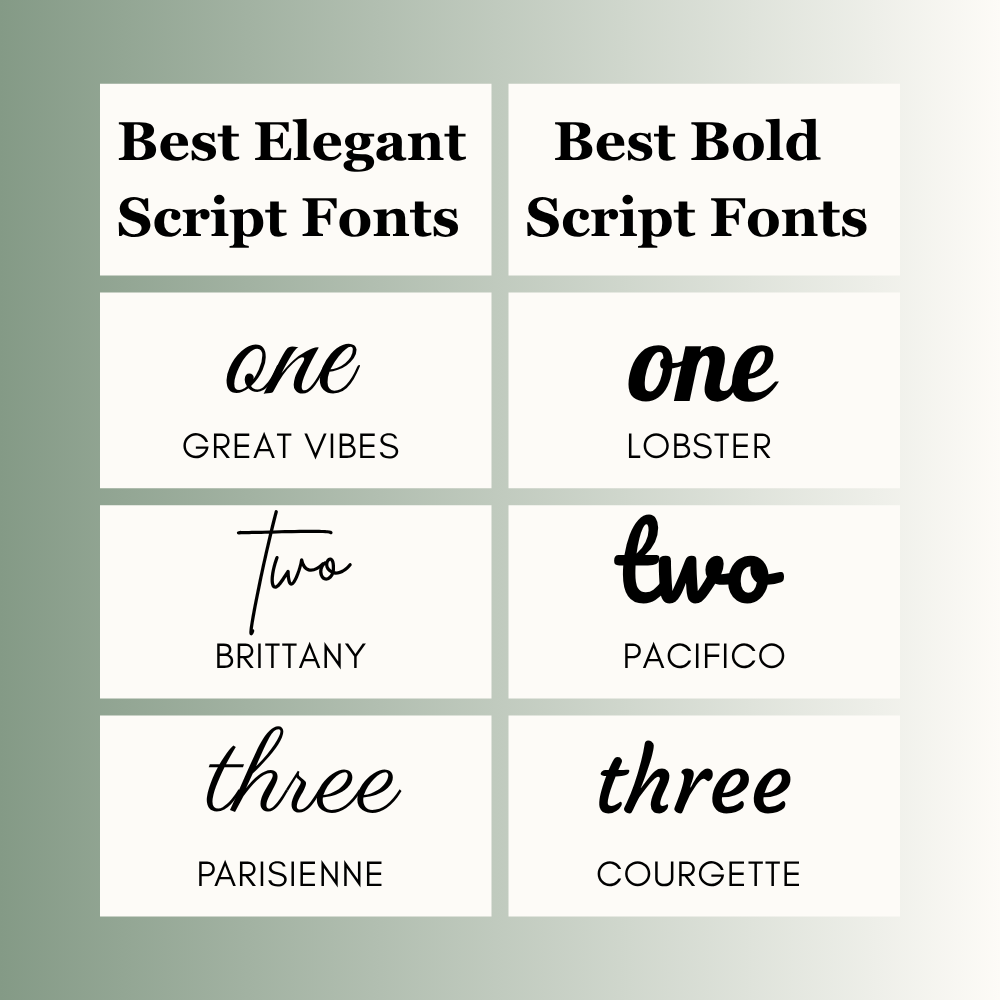
Best Elegant Script Fonts
Elegant styles work best when you want a refined and classy look.
Great Vibes
A popular choice for wedding cards, event graphics, and luxury branding.
Brittany
Soft, stylish, and clean. A strong option for feminine brands.
Parisienne
Light and graceful. Great for quotes and soft visual content.
Best Bold Script Fonts
Bold styles help your message stand out quickly.
Lobster
Strong and eye-catching. Great for thumbnails and sale graphics.
Pacifico
Friendly and playful. Useful for lifestyle and casual brands.
Courgette
Simple and readable with a relaxed style.
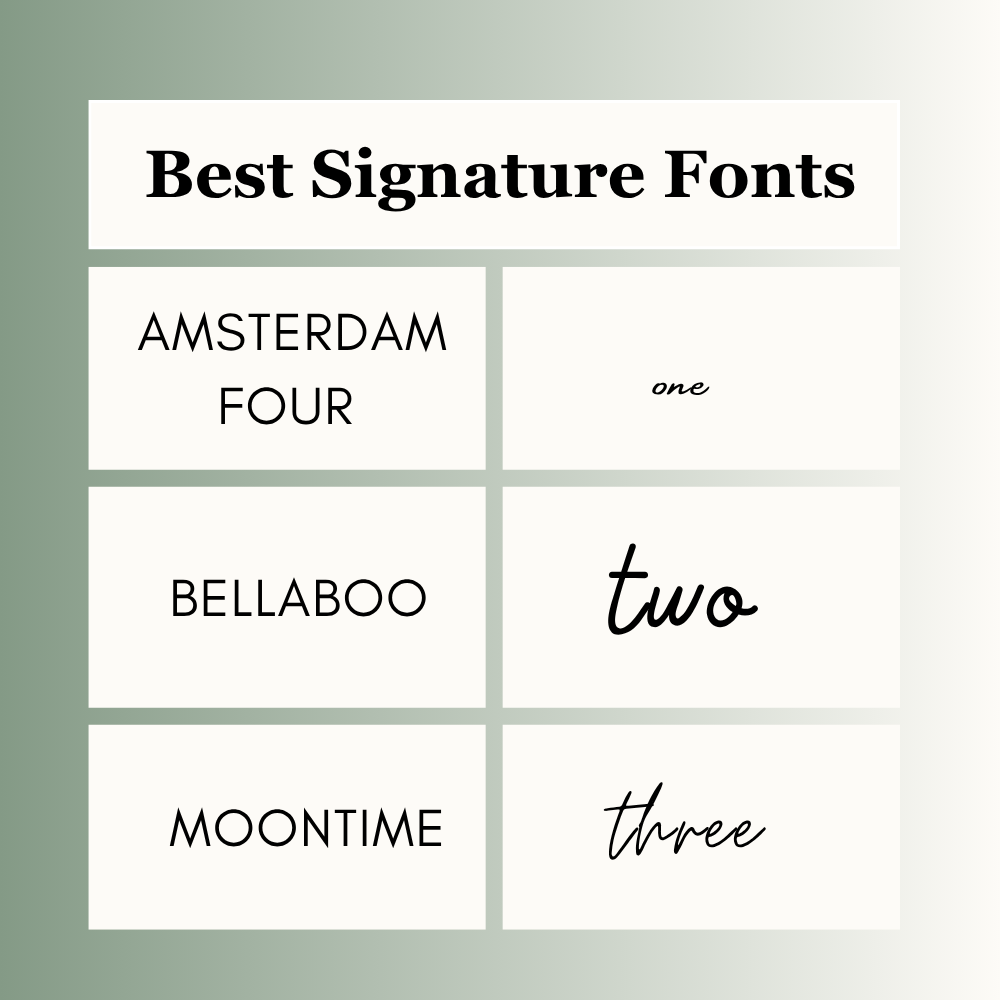
Best Signature Fonts
These fonts feel personal and premium.
Amsterdam Four
A favorite for logos and personal brands.
Bellaboo
Smooth and modern. Great for creators and product brands.
Moontime
A stylish option for beauty, fashion, and boutique businesses.
How to Choose the Right Script Font
A beautiful font is not always the right font. Use these checks first.
1. Start with Purpose
Ask what the design needs to do. Sell, inform, invite, or inspire.
2. Check Readability
If users struggle to read it, choose another option.
3. Match the Mood
Elegant for weddings. Bold for offers. Soft for beauty brands.
4. Test on Mobile
Many fonts look different on smaller screens.
Best Fonts for Common Design Needs
| Use Case | Recommended Fonts |
| Logo | Amsterdam Four, Bellaboo |
| Wedding Invite | Great Vibes, Brittany |
| Instagram Quote | Parisienne, Sacramento |
| Etsy Shop Branding | Moontime, Bellaboo |
| Thumbnail | Lobster, Pacifico |
| Classroom Design | Courgette, Sacramento |
Readability First: Best Easy-to-Read Script Fonts
Some script fonts look beautiful but become hard to read at small sizes. These options stay clearer.
| Font | Best Use | Readability |
| Sacramento | Quotes | High |
| Courgette | Captions | High |
| Lobster | Headlines | High |
| Great Vibes | Invitations | Medium |
| Bellaboo | Logos | Medium |
Real Use Examples
If you run a wedding business, Great Vibes can make invitation posts feel elegant and premium. If you sell planners or templates on Etsy, Bellaboo or Moontime can help build a softer brand style.
If you manage social media for clients, Lobster or Pacifico can work well for offers and promotional posts. If you create worksheets or educational graphics, Courgette is often easier for students and parents to read.
Best Font Pairings
A strong pairing makes designs look more professional. Use script fonts for headings and clean fonts for support text.
Try these combinations:
- Great Vibes + Montserrat
- Brittany + Poppins
- Amsterdam Four + Open Sans
- Pacifico + Lato
- Bellaboo + Raleway
Common Mistakes to Avoid
Many Canva users slow themselves down with simple mistakes.
- Using two decorative fonts together
- Picking style over readability